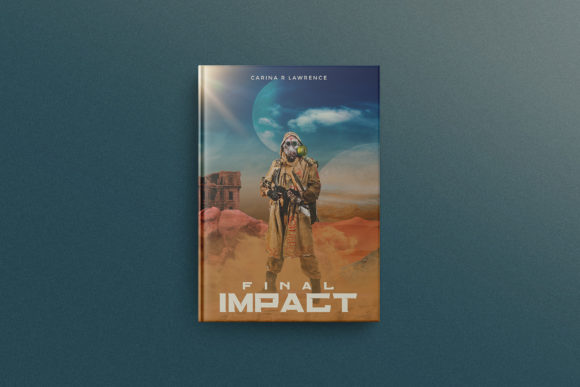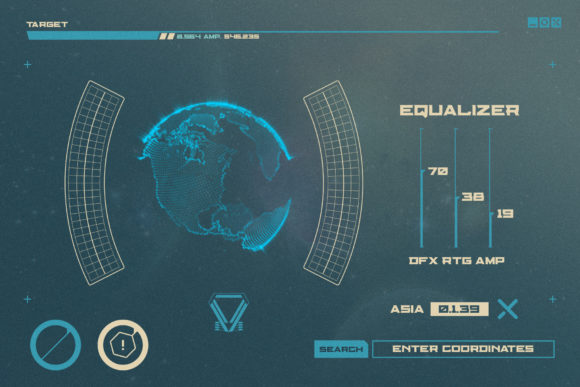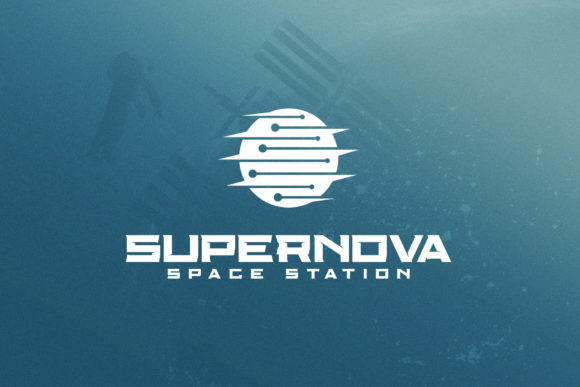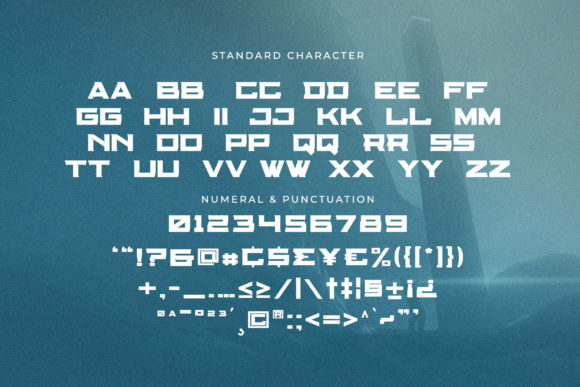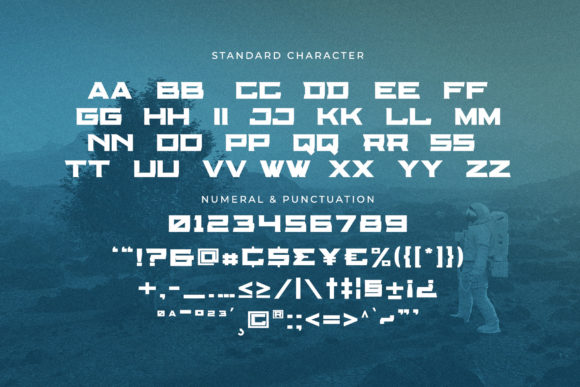
Unleash Your Creativity with Explore Font: A Robust and Versatile Display Font
Are you tired of using the same old fonts in your designs? Look no further! Explore font is here to revolutionize your typography with its unique blend of thickness, robotic style, and versatility. This cool and modern display font is perfect for designers, crafters, and anyone looking to add a touch of sophistication to their creations.
The Features of Explore Font
Explore font boasts a range of features that make it an excellent addition to any font library. Here are just a few of the key benefits:
- Thick Lettered: The bold and chunky lettering of Explore font makes it perfect for headlines, titles, and any other text that needs to grab attention.
- Robotic Styled: The font’s robotic style gives it a futuristic and edgy feel, making it ideal for designs that require a bit of an industrial or technological twist.
- Versatile: Whether you’re working on a logo, brochure, website, or social media graphics, Explore font can adapt to any design style or theme.
The Benefits of Using Explore Font
So, why should you choose Explore font for your next project? Here are just a few of the benefits you can expect:
- Enhanced Visual Appeal: The unique combination of thickness and robotic style makes Explore font a real showstopper, guaranteed to capture the attention of your audience.
- Improved Brand Identity: With Explore font, you can create a bold and memorable brand identity that sets you apart from the competition.
- Easy to Read: Despite its bold style, Explore font is surprisingly easy to read, making it perfect for body text as well as headlines.
How to Use Explore Font in Your Designs
Ready to start exploring the possibilities of Explore font? Here are a few ideas to get you started:
- Headlines and Titles: Use Explore font to create bold and eye-catching headlines that draw readers in.
- Logos and Branding: Create a memorable brand identity with Explore font, perfect for logos, business cards, and letterheads.
- Social Media Graphics: Add a touch of personality to your social media graphics with Explore font, perfect for Facebook posts, Instagram stories, and Twitter headers.
Tips and Tricks for Getting the Most Out of Explore Font
To really make Explore font shine in your designs, here are a few expert tips to keep in mind:
- Experiment with Colors: Try pairing Explore font with a range of colors to create a unique and eye-catching effect.
- Play with Texture: Add an extra layer of depth to your design by combining Explore font with texture or patterns.
- Mix and Match: Don’t be afraid to combine Explore font with other fonts to create a unique and visually appealing typography style.
In conclusion, Explore font is an exceptional display font that offers a unique blend of style, versatility, and functionality. Whether you’re a designer, crafter, or simply someone looking to elevate their typography, Explore font is an excellent choice. So why not give it a try and see the difference it can make in your designs?